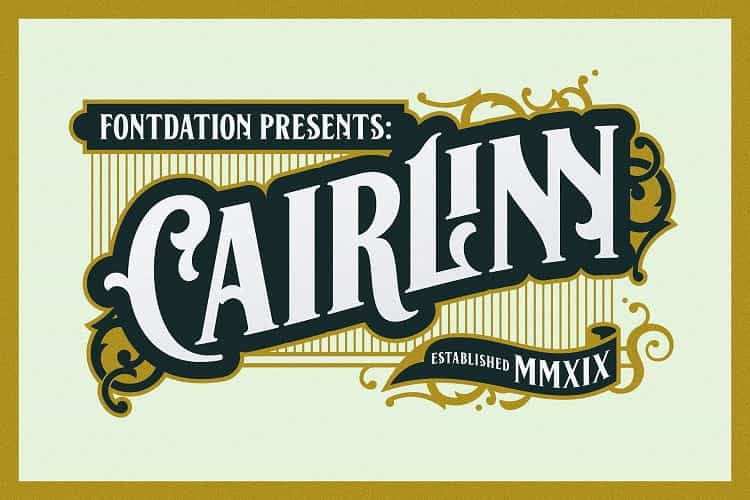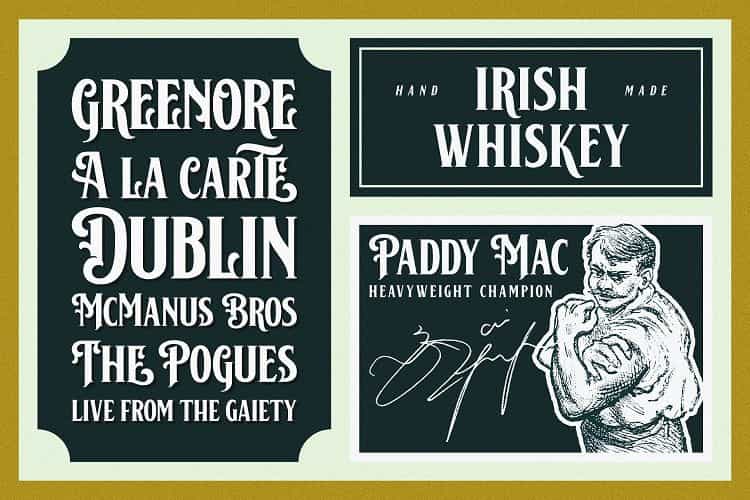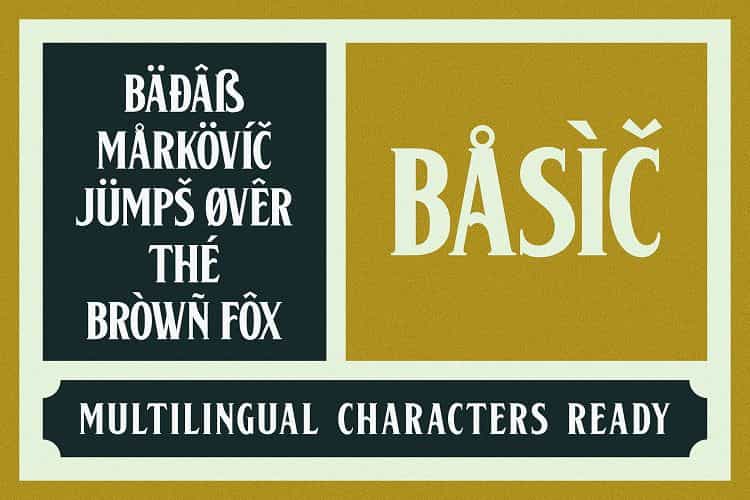
Discover Cairlinn Vintage Font, part of the Blackletter Display Gothic collection—a versatile and unique font perfect for adding a personal touch to your projects. Download it for free and enjoy crafting designs with style, from invitations to social media posts. This font is available exclusively for personal use, giving you the freedom to create without limits. Unlock your creativity with Cairlinn Vintage Font today!
Introducing Cairlinn Font. It is a creation of Twicolabs Fontdation and it can be shared by everyone. Cairlinn is a clean serif that has the spirit of vintage typography. He was greatly influenced by the old letters that are used in classic advertisements.